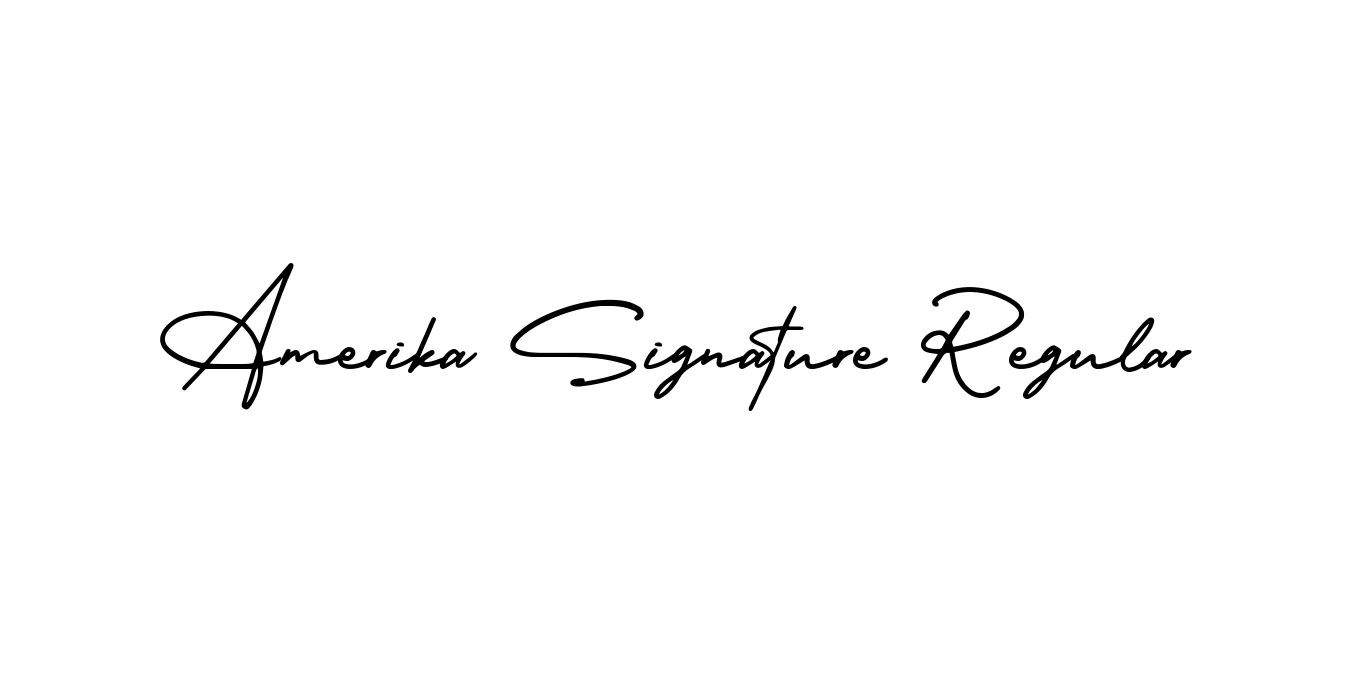
Amerika Signature Regular
Designed by Creatype Studio
Amerika Signature Regular is a sophisticated and stylish handwritten script font meticulously crafted to emulate the natural flow of human penmanship. Developed by the team at Creatype Studio, this typeface features elegant, sweeping curves and delicate strokes that provide a sense of authenticity and luxury. It was specifically designed to offer a high-end signature aesthetic that feels both personal and professionally polished, bridging the gap between casual writing and formal calligraphy.
The font is characterized by its monoline design and seamless ligatures, which ensure that the characters connect fluidly just like a real signature. It includes a comprehensive set of uppercase and lowercase letters, numerals, and punctuation. Its versatility makes it an excellent choice for designers who need to add a human touch to digital or print media without sacrificing legibility or graceful flair.
Amerika Signature Regular Best Uses
Creating unique, high-end personal brand identities and logos.
Adding a graceful and elegant touch to invitations and RSVPs.
Ideal for professional watermarks and stylish portfolio credits.
Crafting eye-catching quotes and promotional graphics for platforms like Instagram.